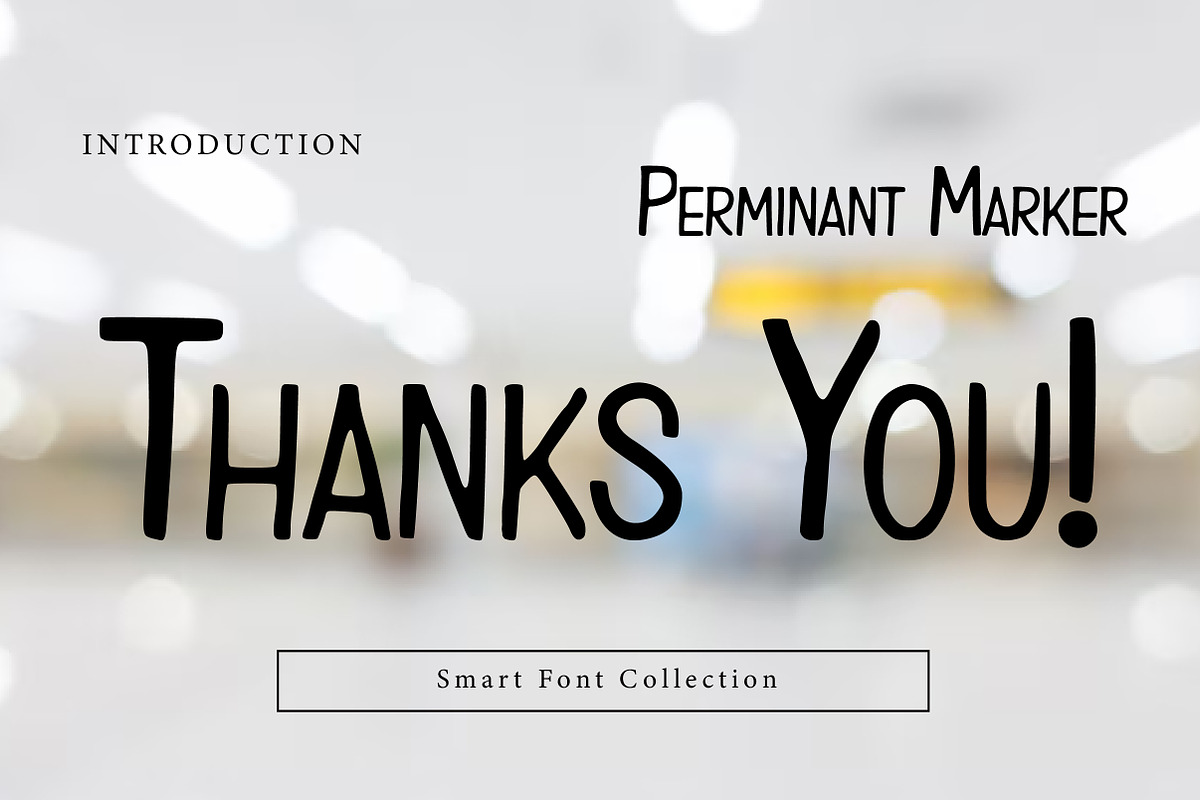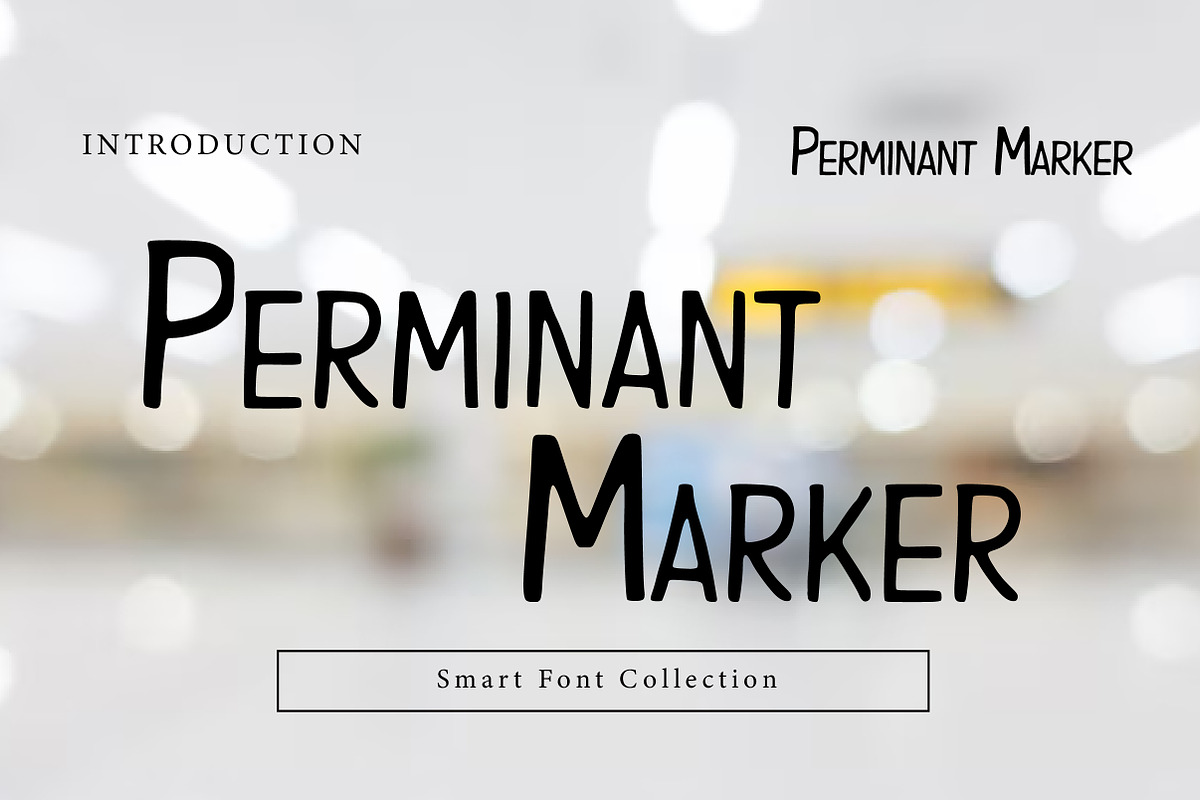
Perminant Marker
Perminant Marker is a bold, raw handwritten marker display font with thick strokes, rough edges, and an authentic hand-drawn feel. Inspired by real permanent marker writing, it’s perfect for posters, protest art, street-style graphics, logos, packaging, album covers, quotes, and expressive branding. Perminant Marker delivers a loud, confident, and rebellious visual voice.